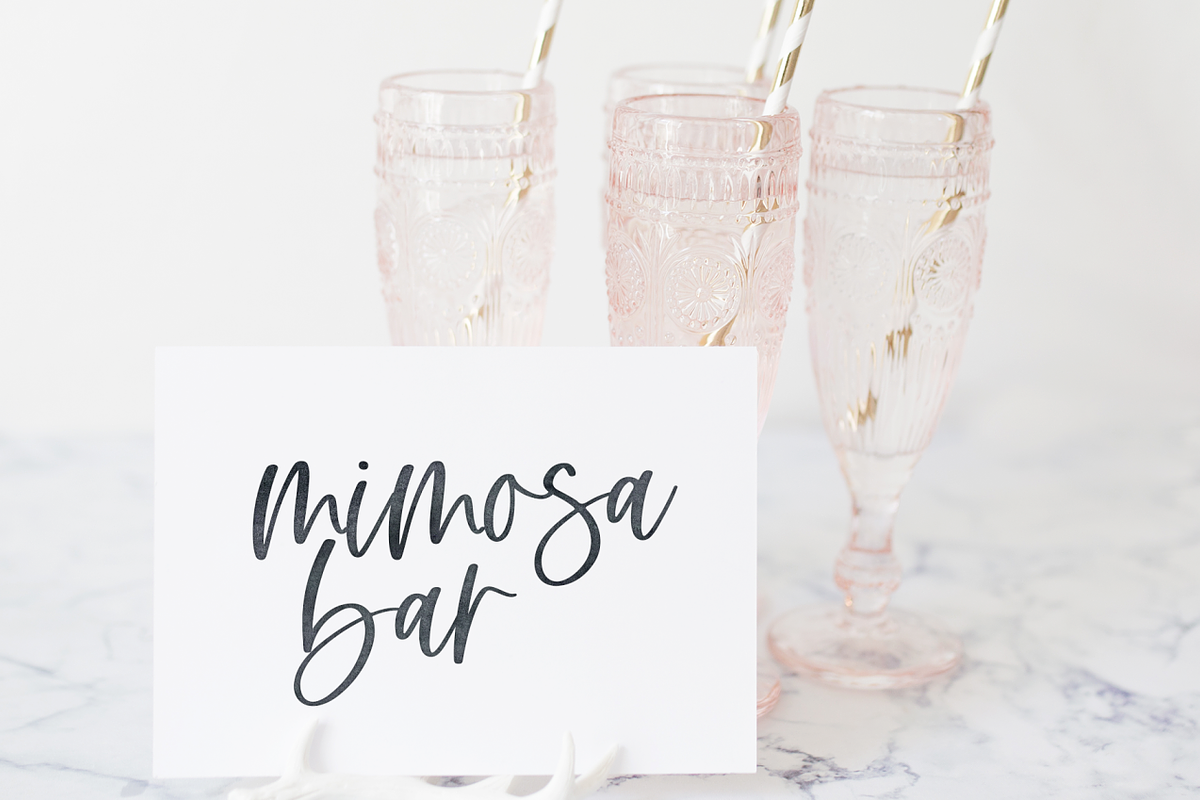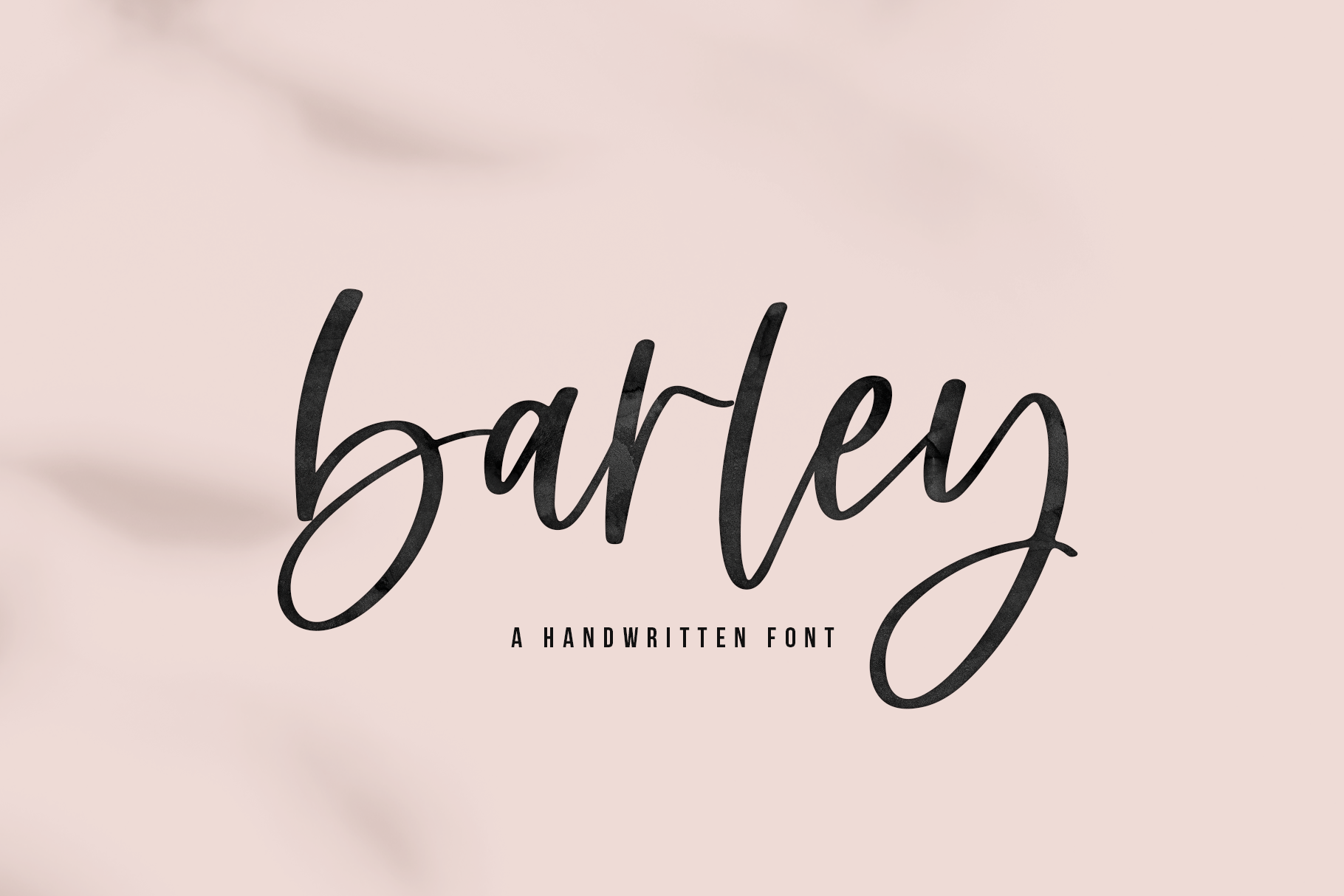
Barley | Handwritten Script Font
Barley is a handwritten script font. It has an authentic modern calligraphy look making it perfect for branding and digital designs.
Use this font for logos, social media, wedding decor, invitations, home decor, websites, blogs, instagram, business cards, branding, and more!